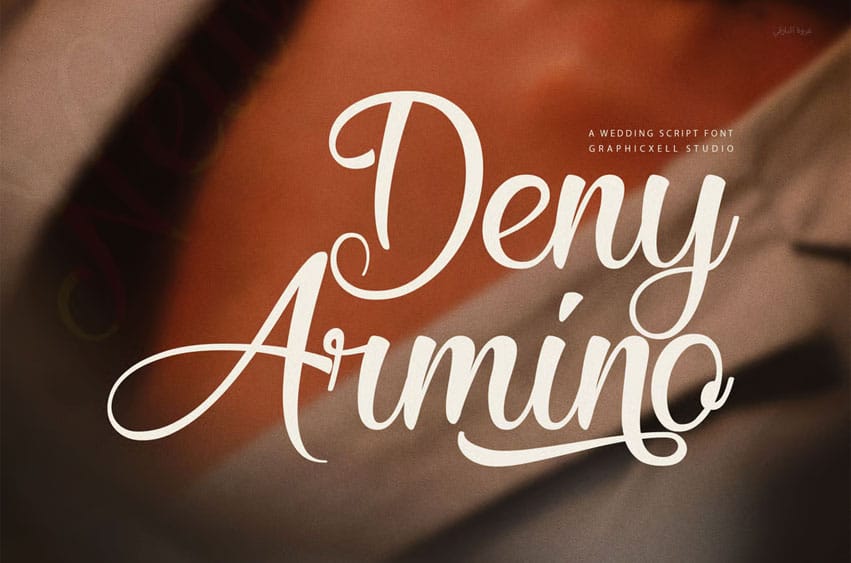
Deny Armino Font is a modern script font that blends elegance, warmth, and creativity into every curve. Its smooth strokes and graceful forms make it ideal for designs that need a personal yet professional touch. Because of its versatility, this font fits beautifully in branding, invitations, and creative packaging projects.
This typeface was crafted with attention to flow and readability. Each letter connects naturally, creating harmony across your text. Therefore, it’s perfect for wedding invitations, logos, greeting cards, or any project that aims to convey emotion and sophistication. Additionally, the balanced letterforms ensure that your designs remain elegant while staying easy to read.
Moreover, Deny Armino includes uppercase and lowercase letters, numbers, punctuation, and a complete set of alternates and ligatures. With these options, you can create endless stylistic combinations. As a result, your projects gain uniqueness and personality with minimal effort.
In addition, the font supports multiple languages and includes OTF and TTF formats, making it easy to use in any design software. The gentle curves add a romantic and joyful tone, while the consistent weight ensures visual stability. Consequently, it fits a wide range of design moods—from playful charm to refined luxury.
Most importantly, Deny Armino embodies the spirit of creative craftsmanship. It gives every word a sense of life, elegance, and intention. Whether you’re designing for fashion, weddings, or lifestyle brands, this script font helps your work feel both timeless and modern.
Let Deny Armino elevate your projects with its artistic touch, expressive swashes, and inviting personality. It’s more than a typeface—it’s your creative voice in elegant form.